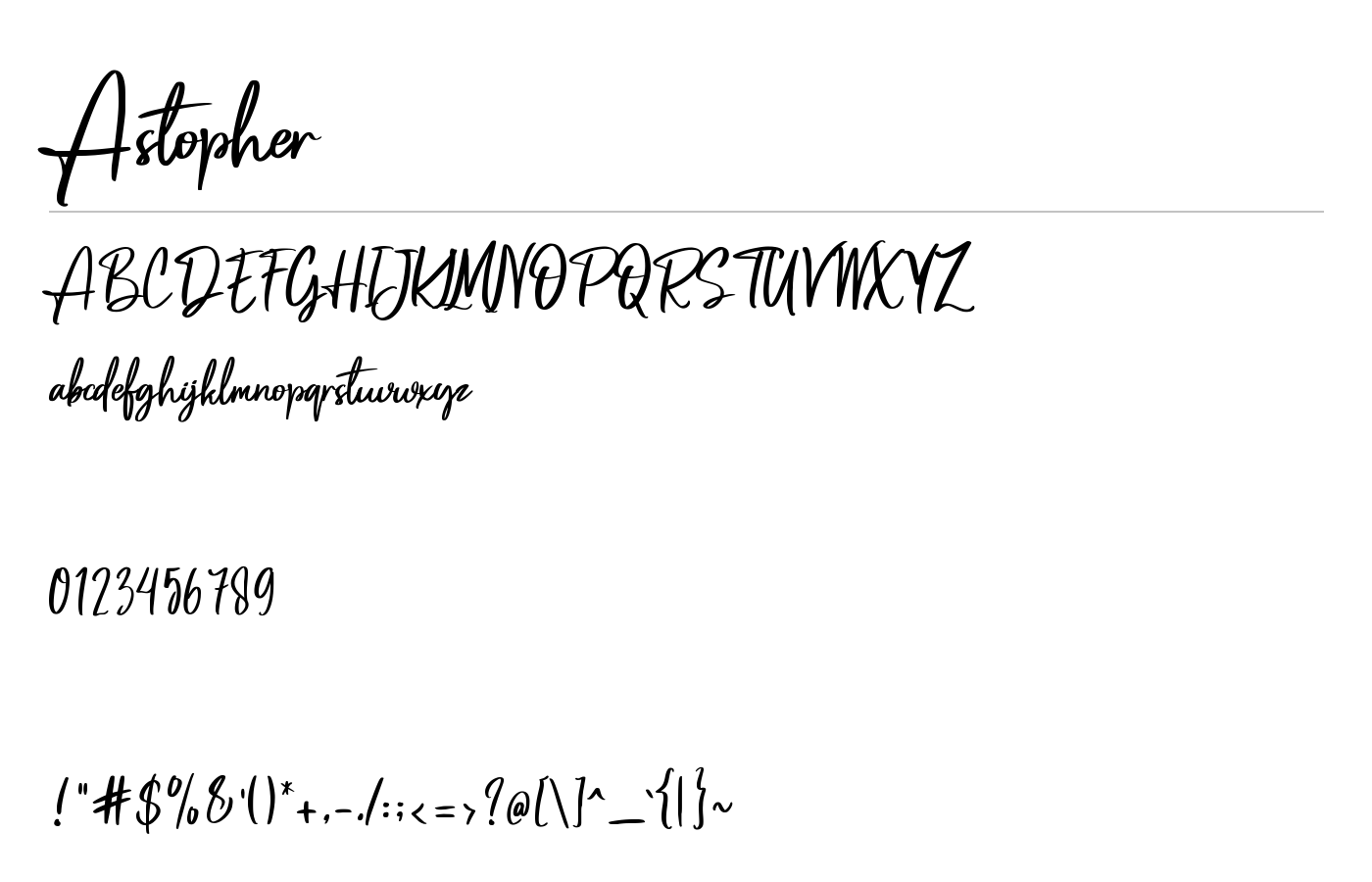
Astopher is a lively and elegant handwritten script font, characterized by its fluid, connected strokes and moderately tall x-height that enhances readability. Its light weight and slightly condensed letterforms give it a stylish, modern feel perfect for adding a personal touch to branding, invitations, and creative headlines. This font works best in designs that seek a warm, approachable, yet refined vibe.
Astopher Font
About Astopher Font